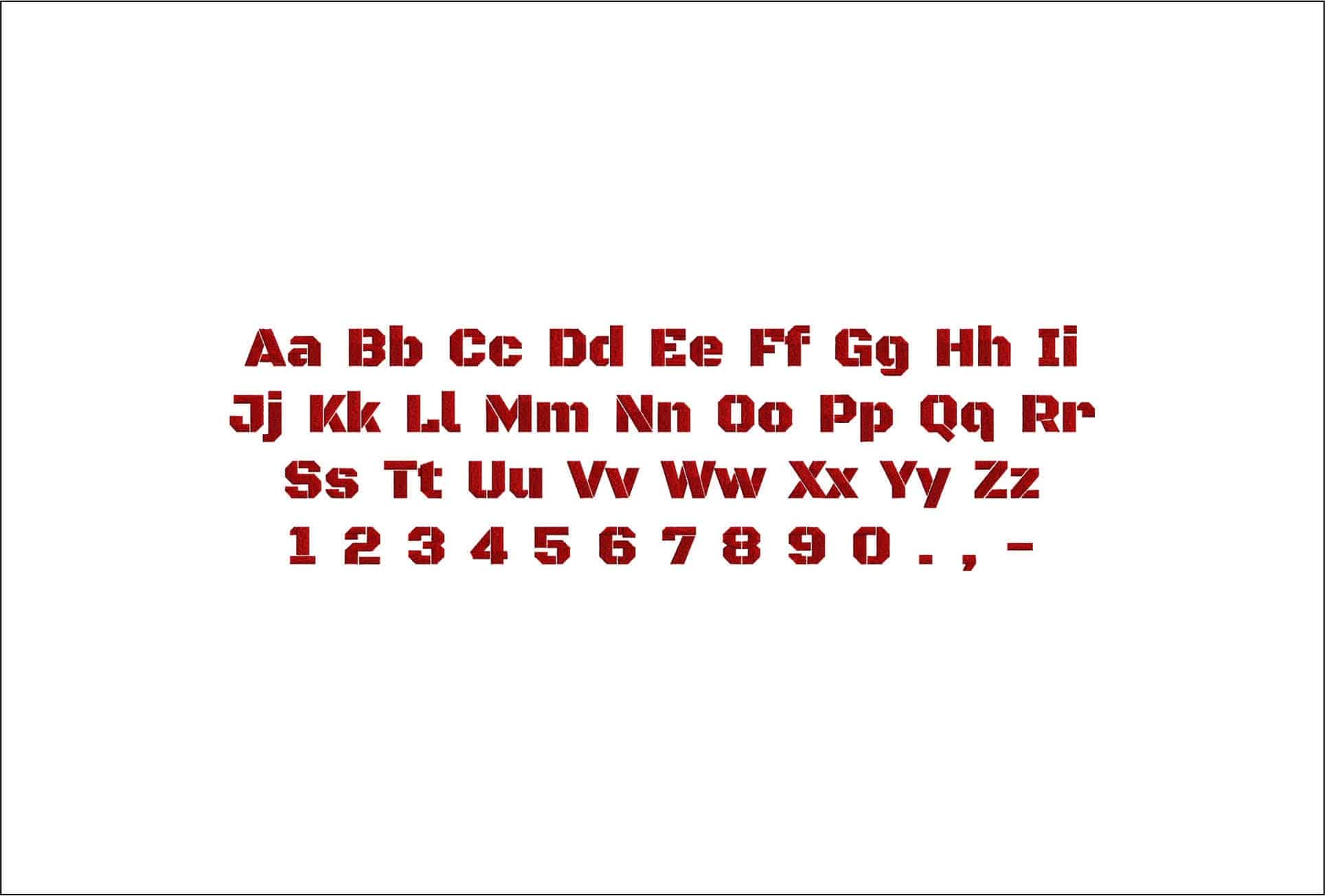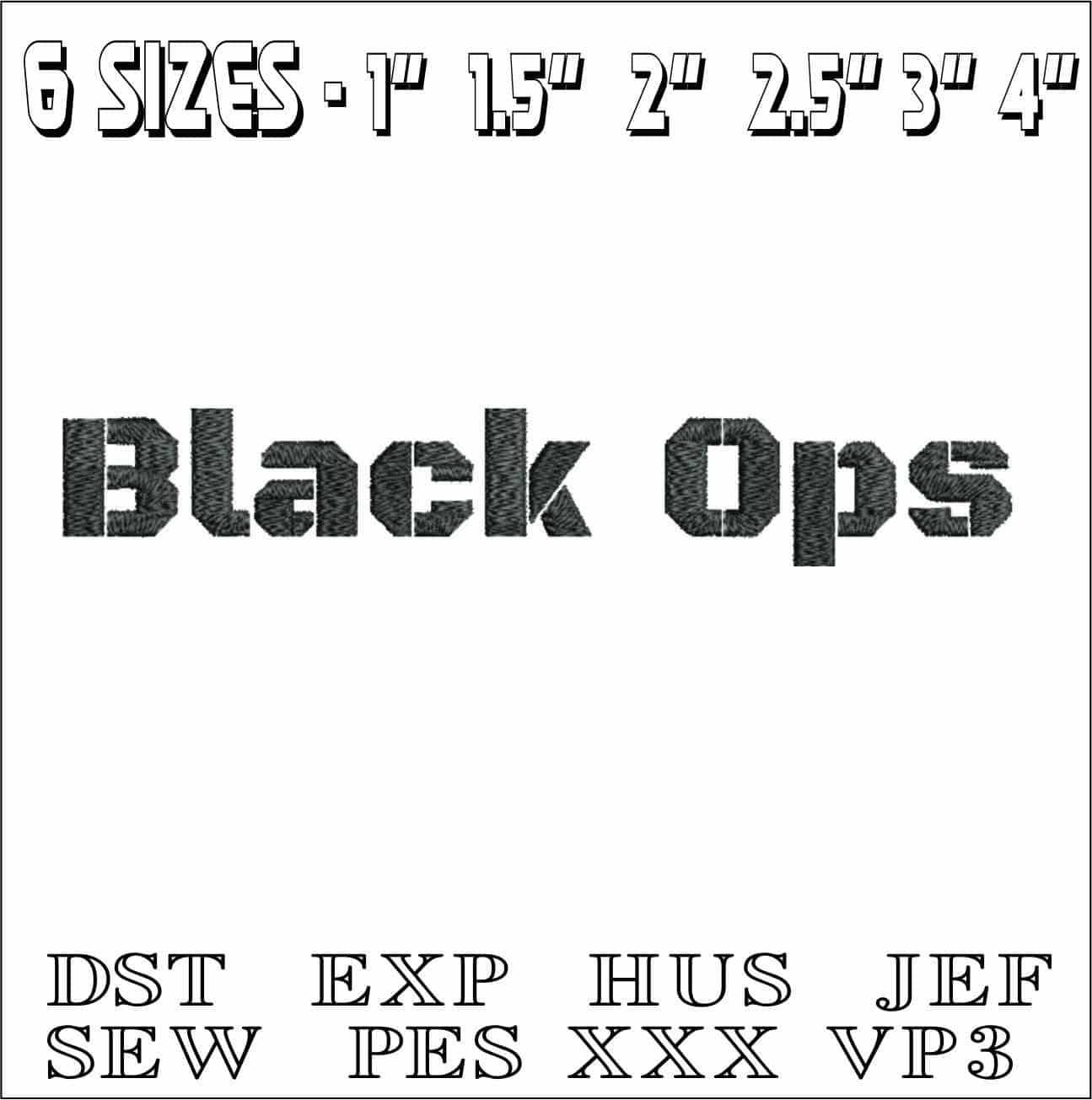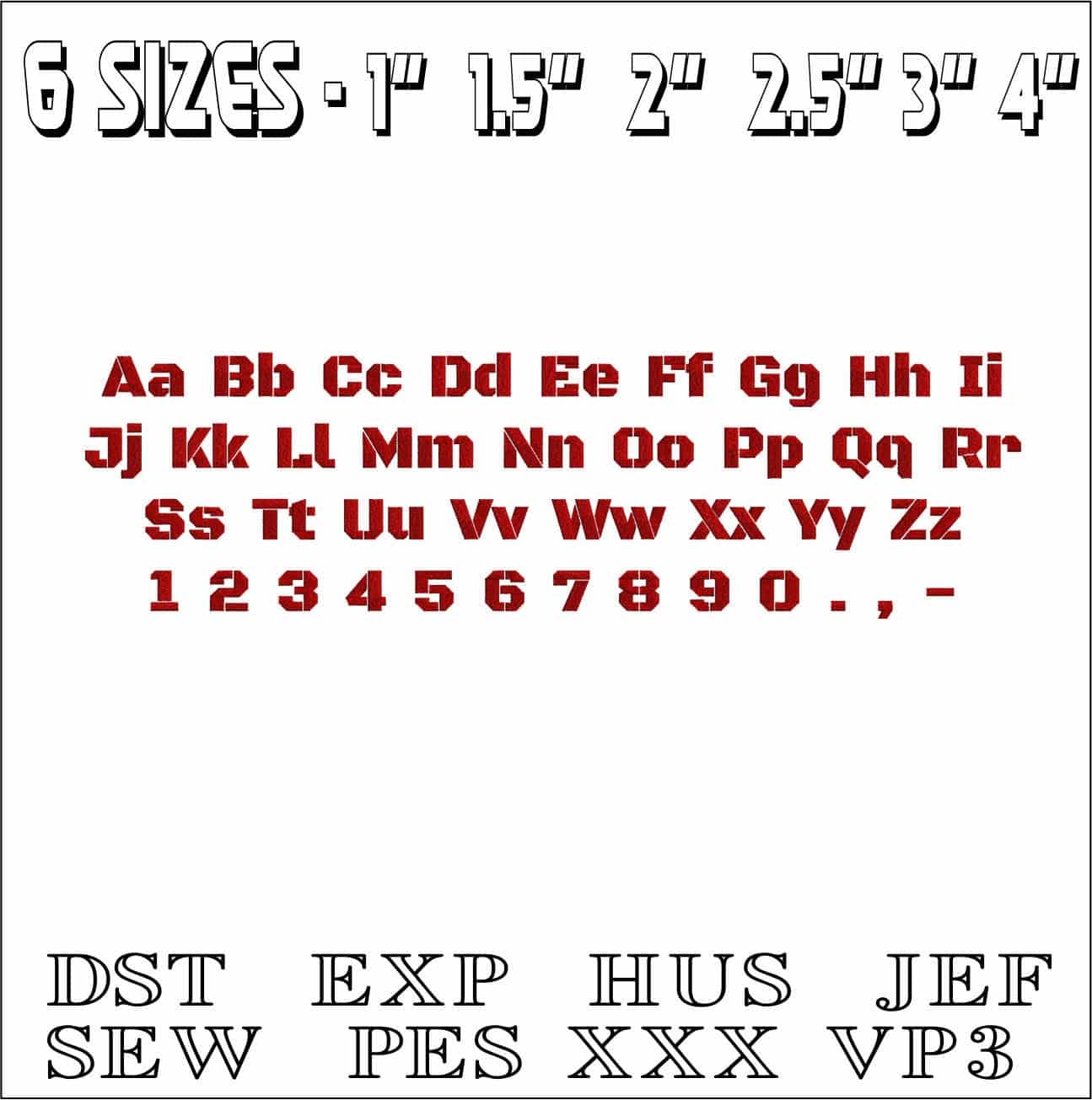
Sharp, military-inspired block lettering that gives names, initials and team text a clean, commanding finish.
Bring tactical edge to names and wording with this Black Ops embroidery font, a modern block alphabet with a crisp, squared-off look. The sample shows full uppercase and lowercase letters, numbers and punctuation, so it’s a strong choice for anyone personalising uniforms, kit bags, workwear or no-nonsense casual pieces. The black-and-red presentation highlights how clearly each character reads, even when you want short words or initials to do the talking.
This style suits jackets, hoodies, caps, duffel bags and utility aprons especially well, where a firm, structured letterform looks at home. It has the kind of straight, compact presence that works neatly on sturdier fabrics like denim, twill and canvas, but it also gives sweatshirts and fleece a bold, graphic finish. Use it when you want text that feels direct and disciplined rather than decorative.